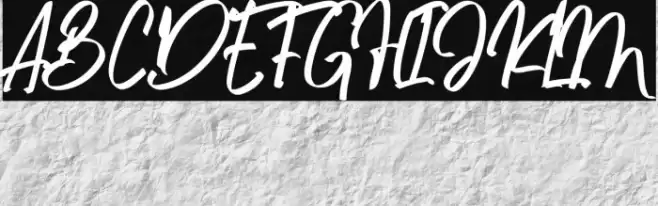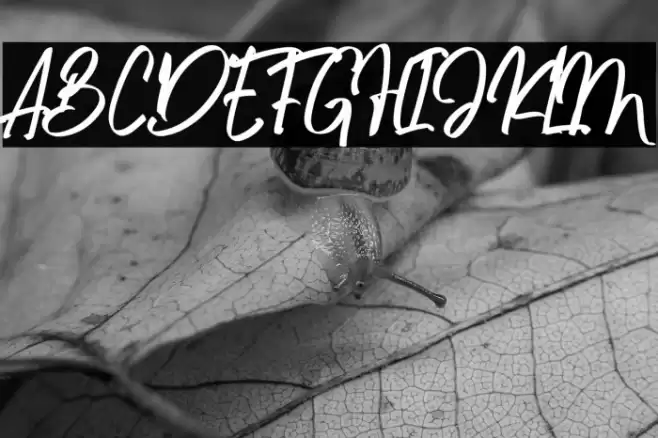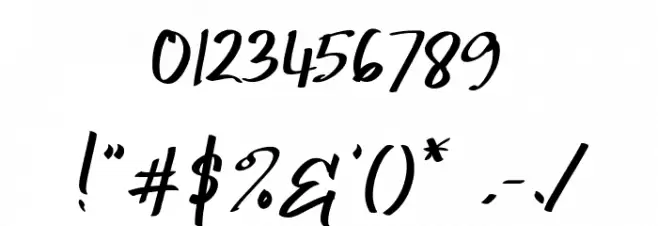
Algenta Font Font
Algenta Font Description
This font exudes a lively and dynamic energy with its flowing, cursive script style. The letters are interconnected, creating a sense of continuity and movement. The strokes are bold and expressive, with varying thickness that adds a touch of elegance and flair. The uppercase letters are particularly striking, with dramatic loops and swirls that make a statement. The lowercase letters maintain the same fluidity, offering a harmonious balance. Numbers and special characters are crafted with the same attention to detail, ensuring consistency across the board. This font is perfect for projects that require a personal, handwritten touch.
A bold, cursive script font with expressive, flowing strokes from Uncategorized fonts.
- Font: Algenta Font
- Proposed Projects: Ideal for wedding invitations, greeting cards, branding, and logo design.
- Use Case: Logos, Headlines, Invitations